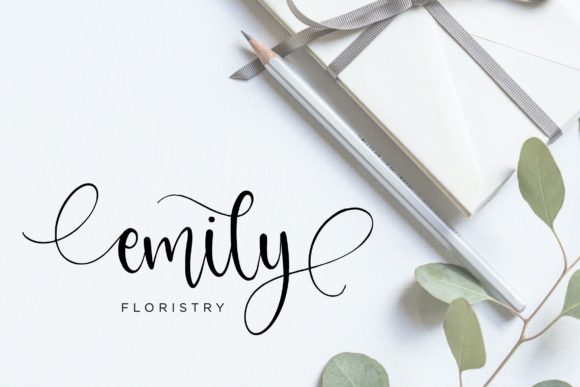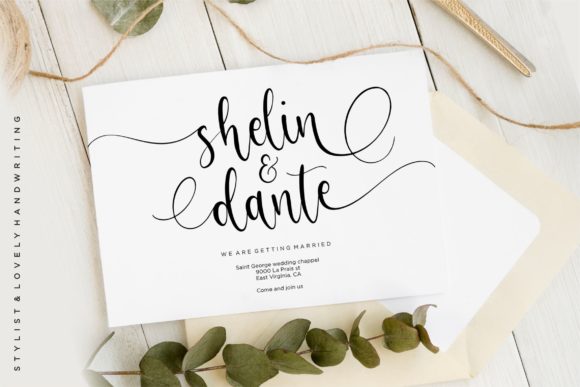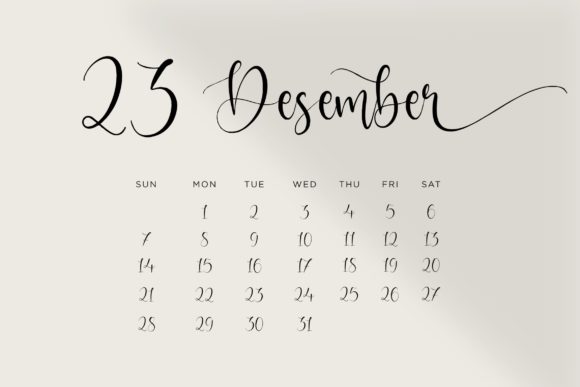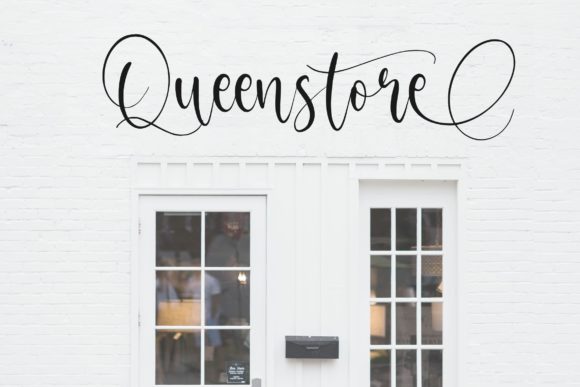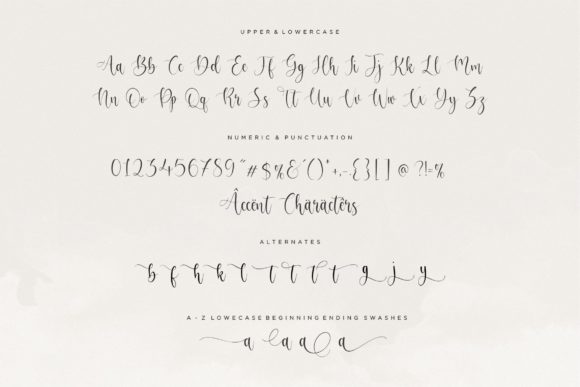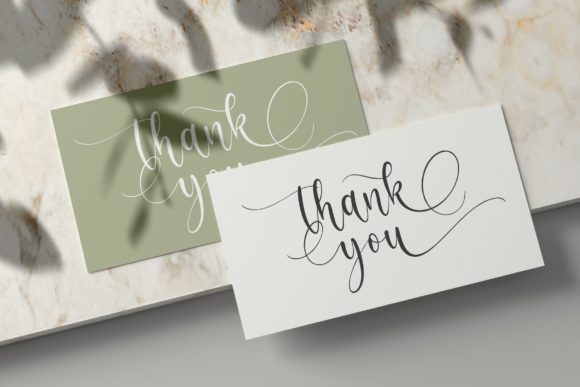
Introducing Adrielle Font: The Perfect Handwritten Style for Your Designs
Are you looking for a font that adds a touch of elegance and personality to your designs? Look no further than Adrielle Font, a fashionable and distinct handwritten font that’s perfect for a variety of creative projects. In this article, we’ll explore the features and benefits of Adrielle Font, and show you how it can elevate your designs to the next level.
What is Adrielle Font?
Adrielle Font is a beautifully crafted handwritten font that’s designed to bring a personal touch to your designs. Its unique and stylish lettering makes it perfect for projects that require a bit of flair, such as wedding invitations, thank you cards, weddings, greeting cards, logos, and more. With Adrielle Font, you can add a touch of sophistication and whimsy to your designs, making them truly stand out.
Key Features of Adrielle Font
So, what makes Adrielle Font so special? Here are just a few of its key features:
- Fashionable and distinct handwritten style: Adrielle Font boasts a unique and stylish handwritten look that’s perfect for designs that require a personal touch.
- PUA encoded: This font is PUA (Private Use Area) encoded, which means you can access all of the glyphs and swashes with ease. This makes it simple to customize your designs and add your own personal flair.
- Versatile: Adrielle Font is perfect for a wide range of designs, from wedding invitations and greeting cards to logos and more.
Why Choose Adrielle Font?
With so many fonts to choose from, why should you choose Adrielle Font for your designs? Here are just a few reasons:
- Unique and stylish: Adrielle Font offers a fresh and stylish look that’s sure to make your designs stand out.
- Easily customizable: With PUA encoding, you can easily access and customize the glyphs and swashes to fit your design needs.
- Time-saving: Adrielle Font is designed to be easy to use, saving you time and effort in your design process.
How to Use Adrielle Font in Your Designs
Using Adrielle Font in your designs is easy! Here are a few tips to get you started:
- Pair it with other fonts: Adrielle Font pairs beautifully with other fonts, so don’t be afraid to experiment with different combinations.
- Use it for headings and titles: Adrielle Font is perfect for headings and titles, adding a touch of elegance and sophistication to your designs.
- Add your own personal touch: With PUA encoding, you can easily customize the glyphs and swashes to add your own personal touch to your designs.
Adrielle Font is perfect for designers and crafters who want to add a personal touch to their designs. Whether you’re creating wedding invitations, greeting cards, or logos, Adrielle Font is the perfect choice. Its unique and stylish handwritten look makes it perfect for:
- Wedding invitations and stationery: Add a touch of elegance and sophistication to your wedding invitations and stationery with Adrielle Font.
- Greeting cards and gift tags: Create beautiful and personalized greeting cards and gift tags with Adrielle Font.
- Logos and branding: Use Adrielle Font to create a unique and stylish logo that reflects your brand’s personality.